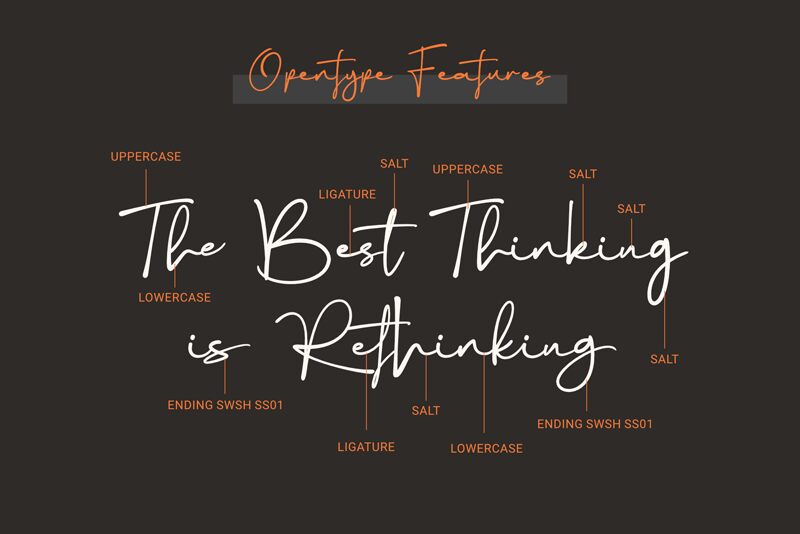
Rethinker
Rethinker, crafted by DumadiStyle, is a font that captures the essence of personal touch with its handwritten, signature style. Its light weight gives it a delicate and refined appearance, embodying an elegant yet informal charm that makes it incredibly versatile. The fluidity of Rethinker's characters suggests creativity and thoughtfulness, making it an ideal choice for branding projects, invitations, and editorial designs seeking to convey authenticity and sophistication.
The font's organic curves and natural line variations are reminiscent of classic calligraphy with a modern twist. This unique blend allows Rethinker to stand out in digital platforms while retaining the warmth of traditional handwriting. Whether used in logo design or as part of a stylish header on a website, Rethinker offers designers the opportunity to impart a sense of individuality and grace to their projects.